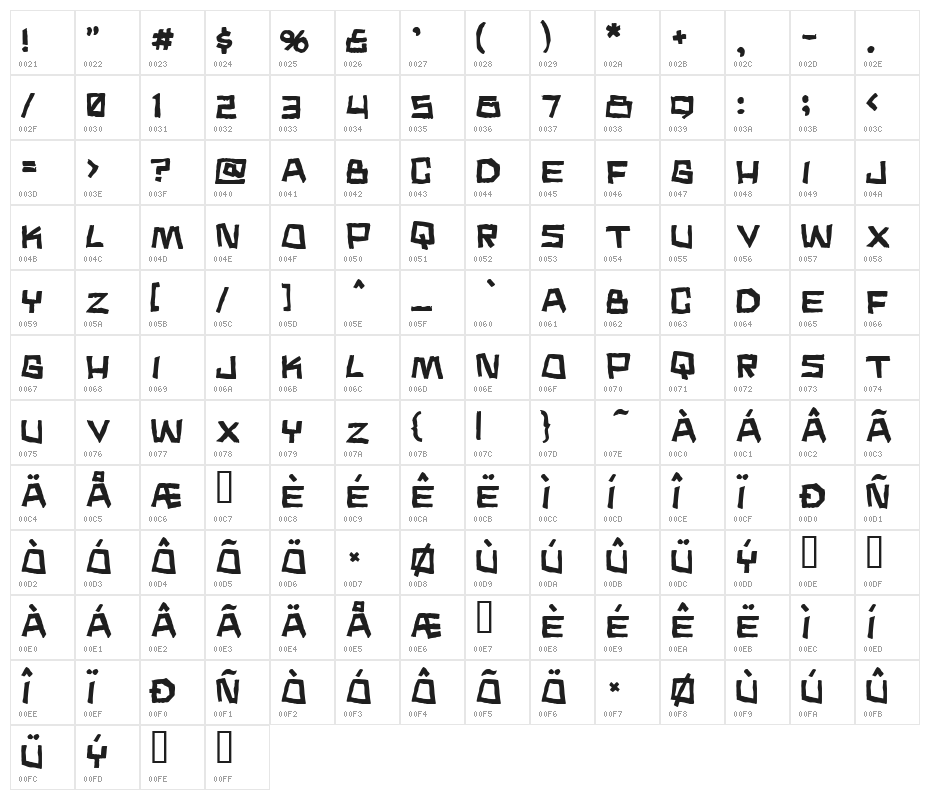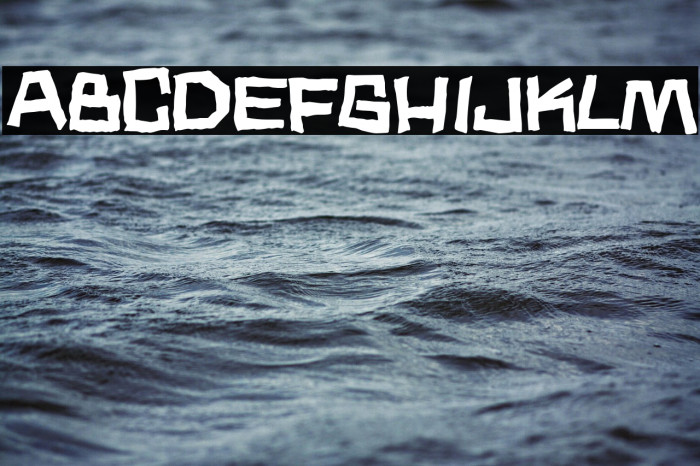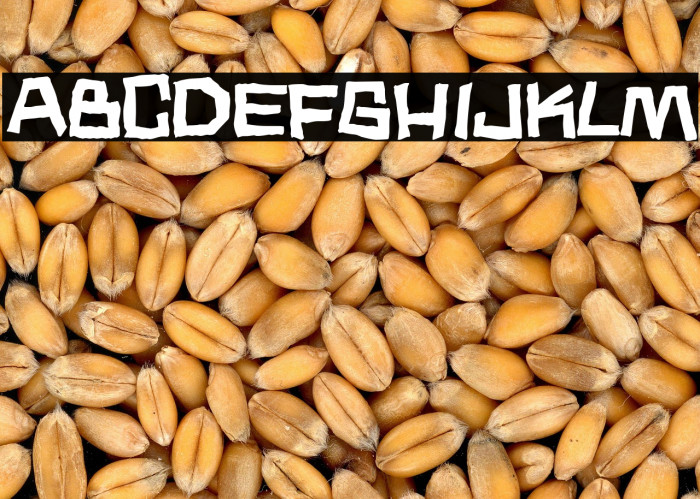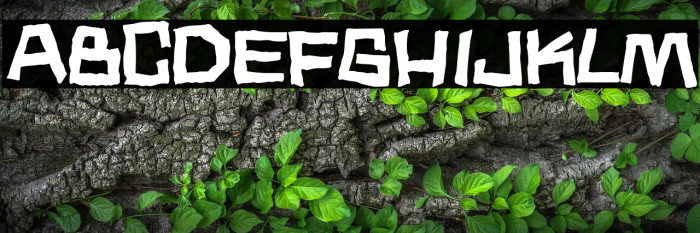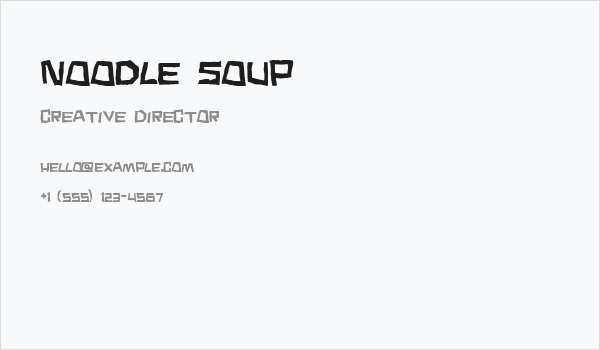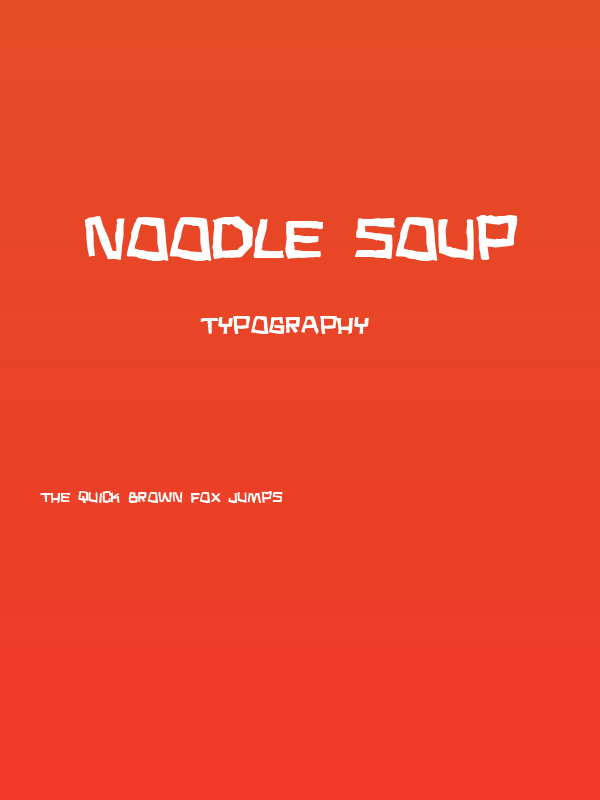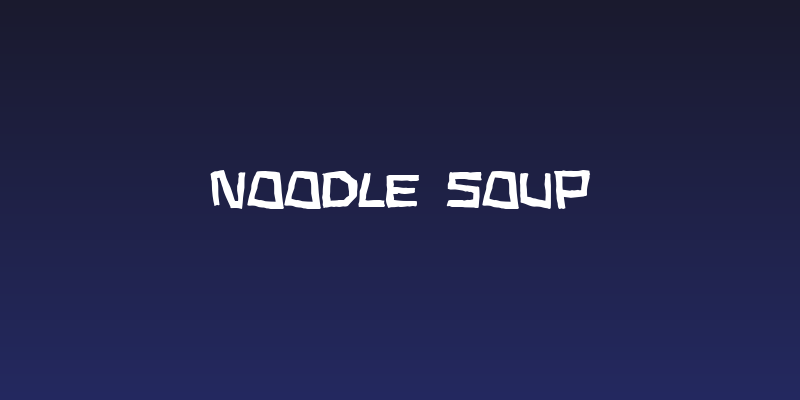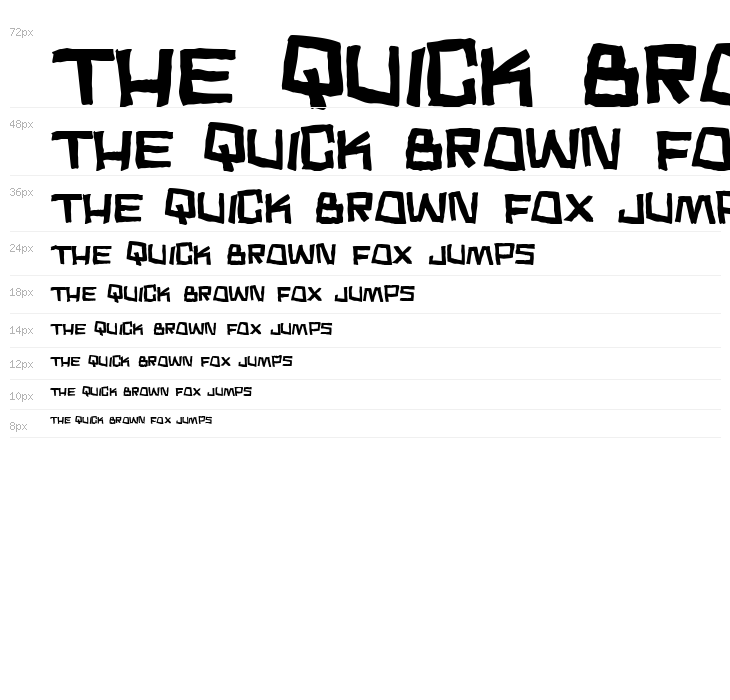
Noodle soup Font
Noodle soup Description
This font features a bold and dynamic style with a hand-drawn appearance, characterized by irregular and slightly jagged edges. The letters are uppercase and lowercase, with numbers and a variety of special characters. The strokes are thick and uneven, giving it a playful and artistic feel. It has a unique, almost graffiti-like aesthetic that stands out, making it suitable for creative and informal designs. The font's quirky and energetic vibe is perfect for projects that require a touch of personality and flair.
| Proposed Projects | Ideal for posters, album covers, street art designs, and creative branding projects. |